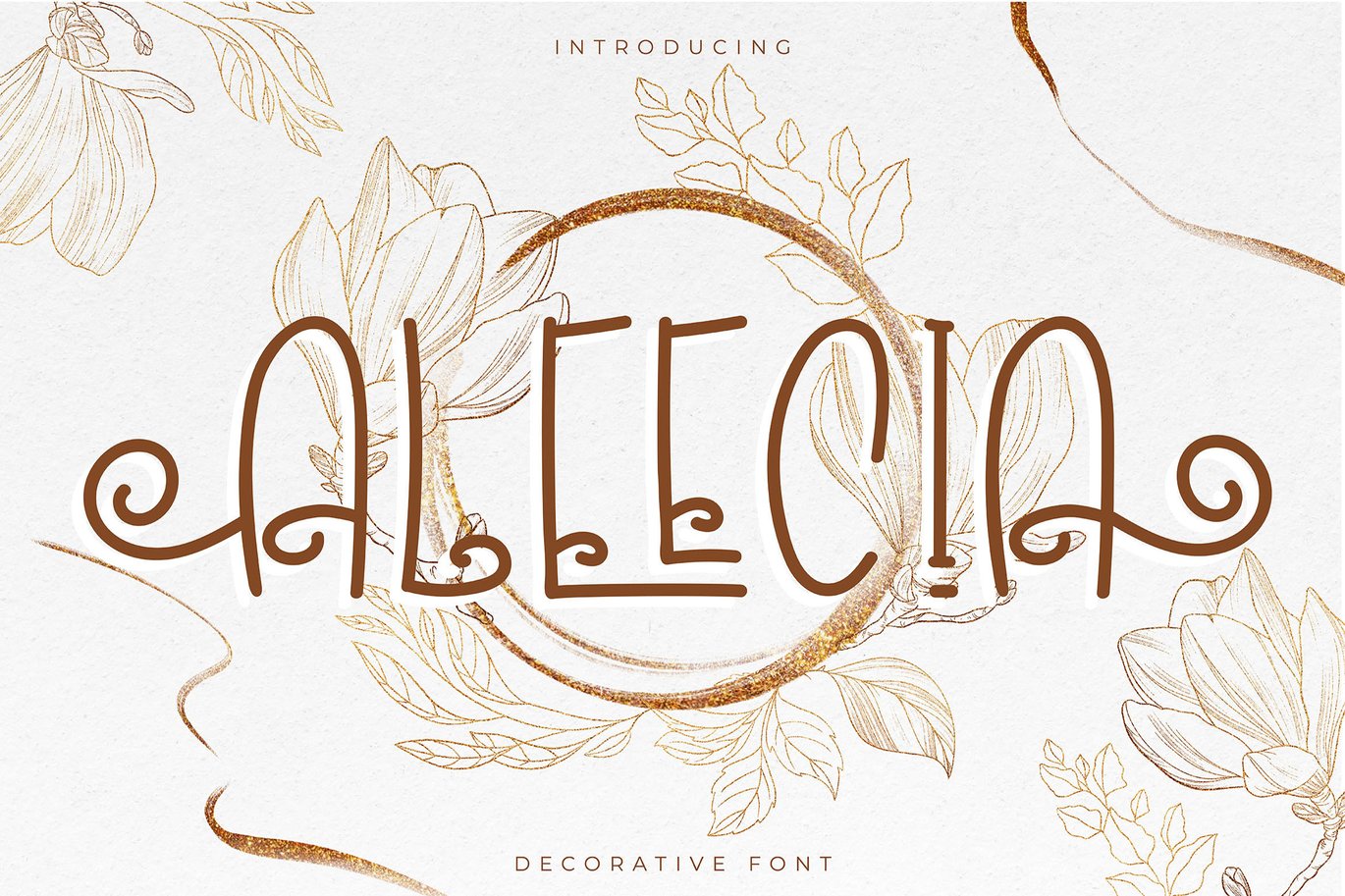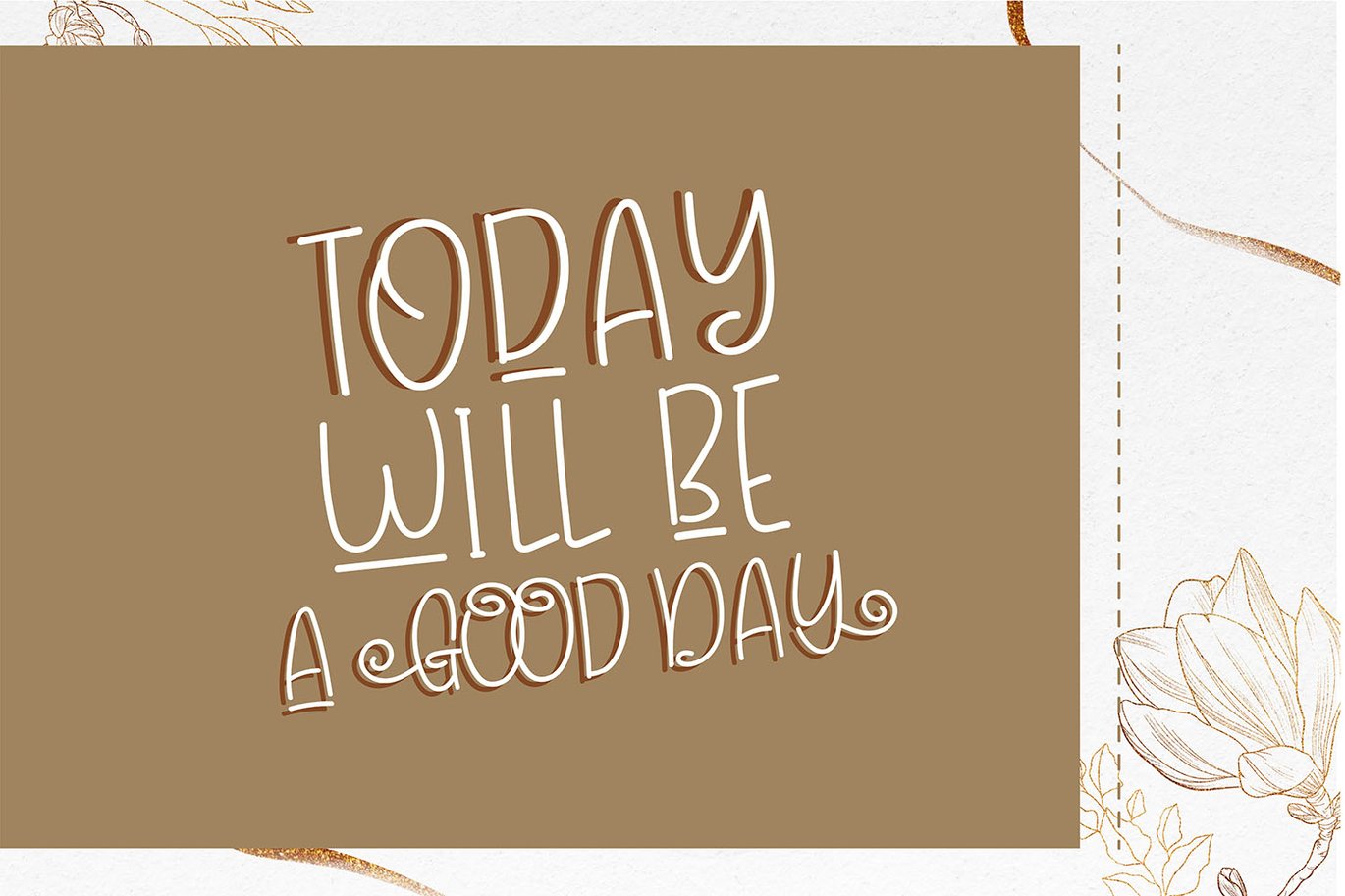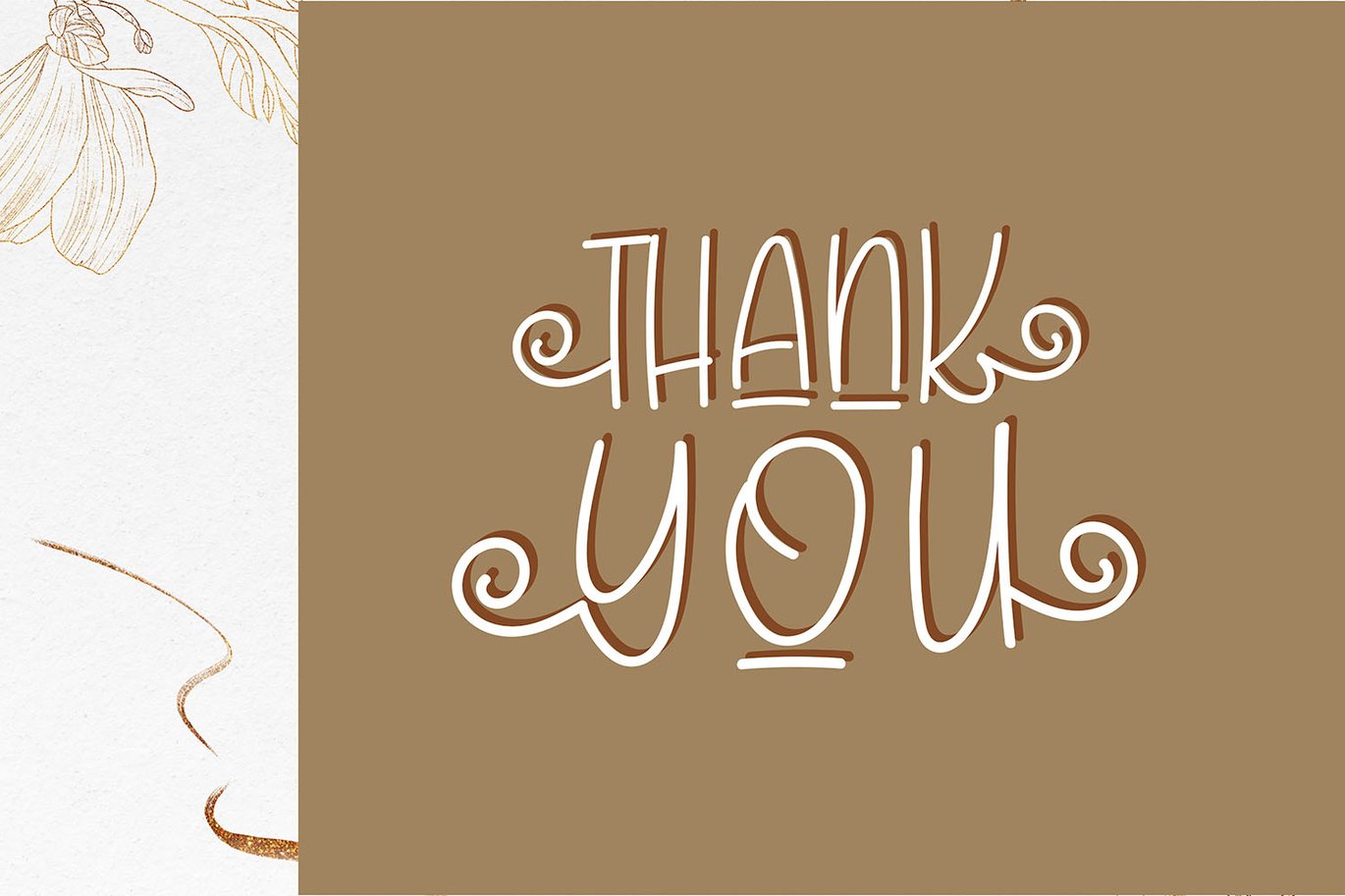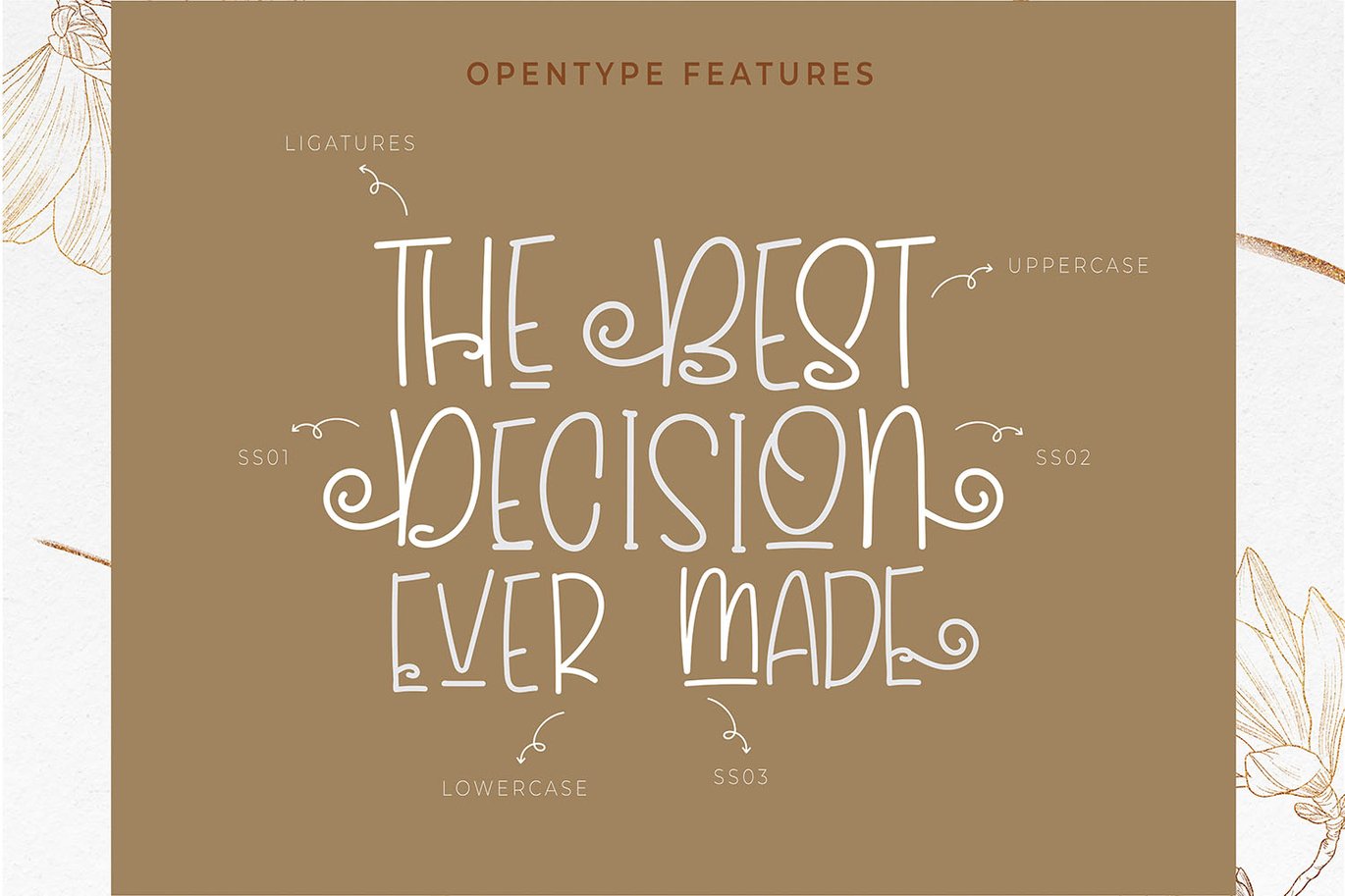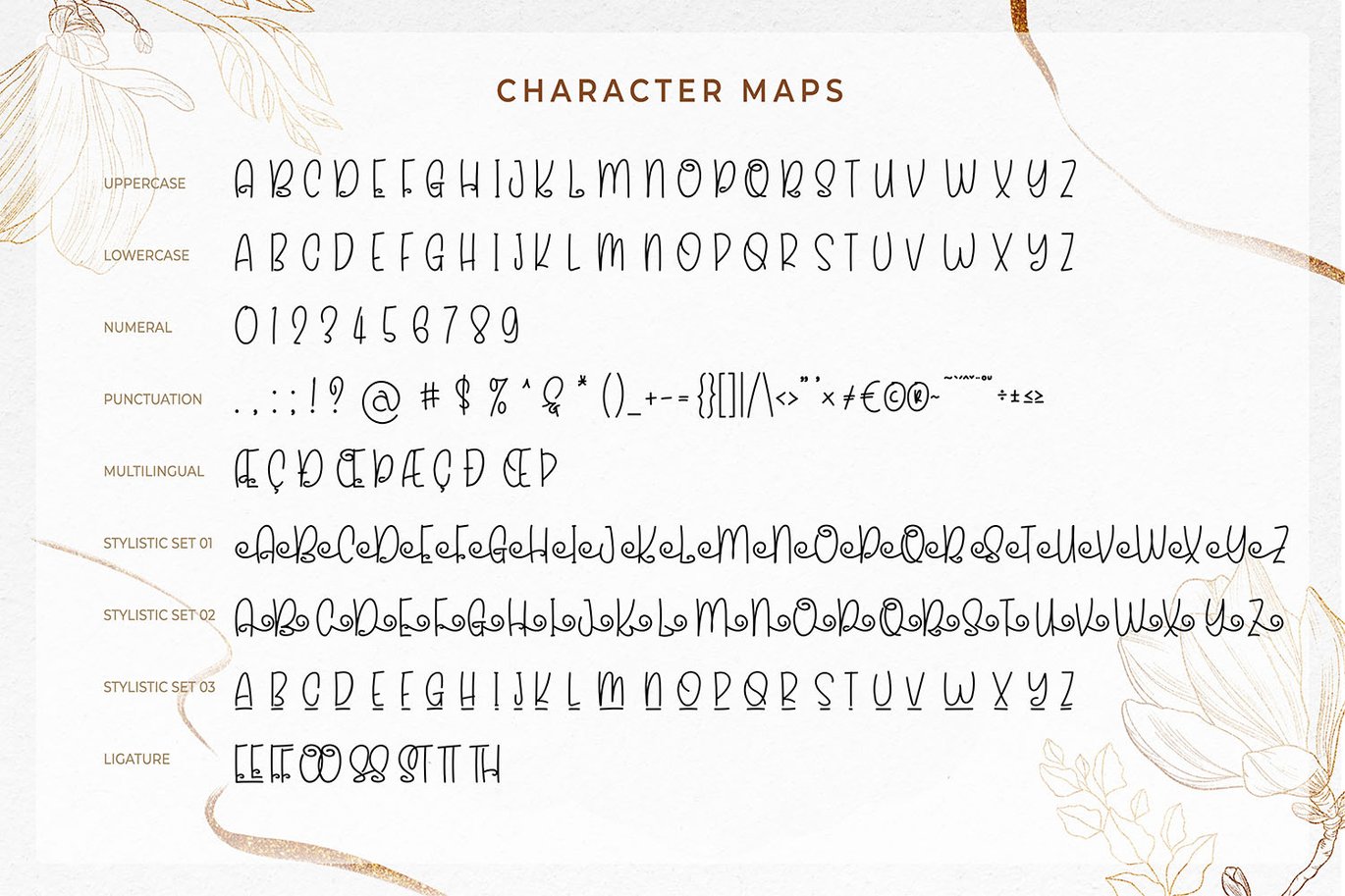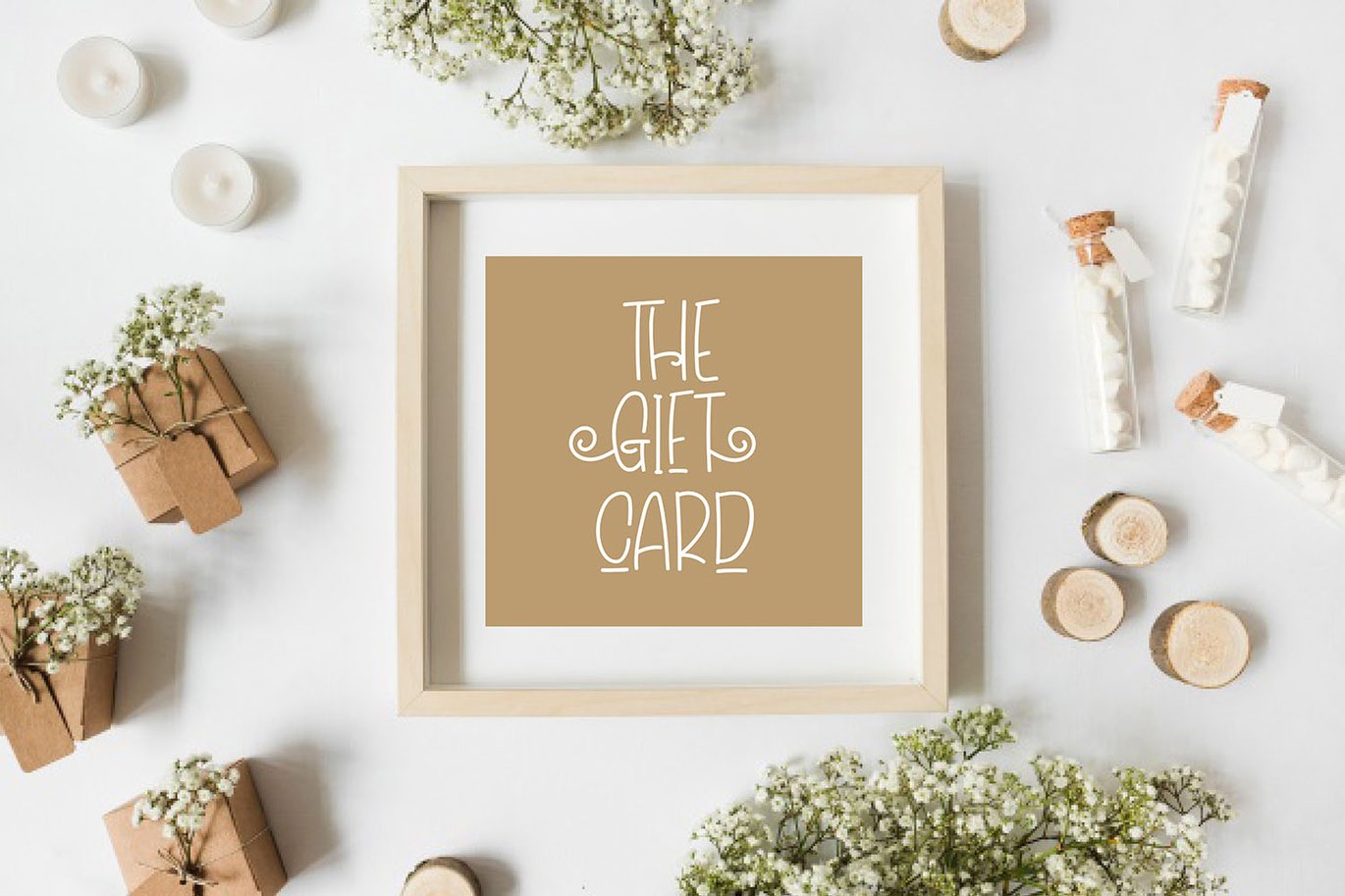
Aleecia | Decorative Font
Aleecia | Decorative Font with a calligraphy style, So beautiful on invitation like greeting cards, branding materials, business cards, quotes, posters, and more!